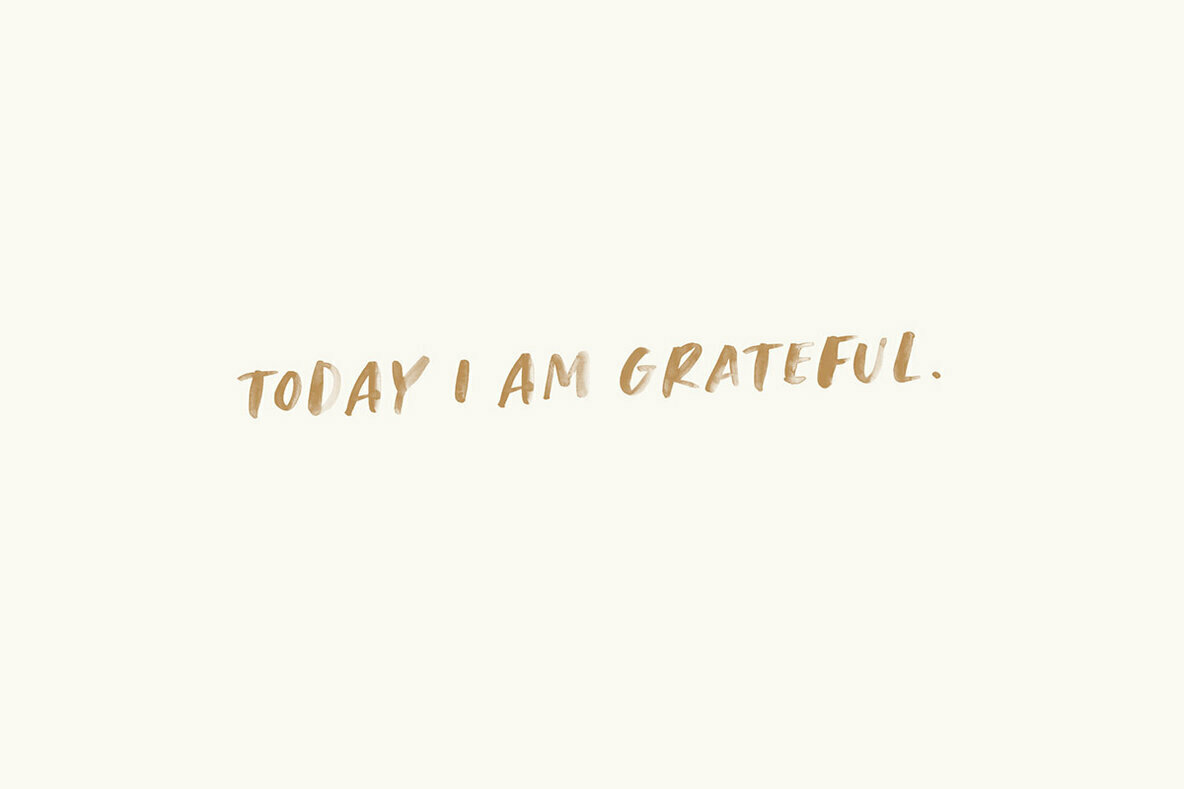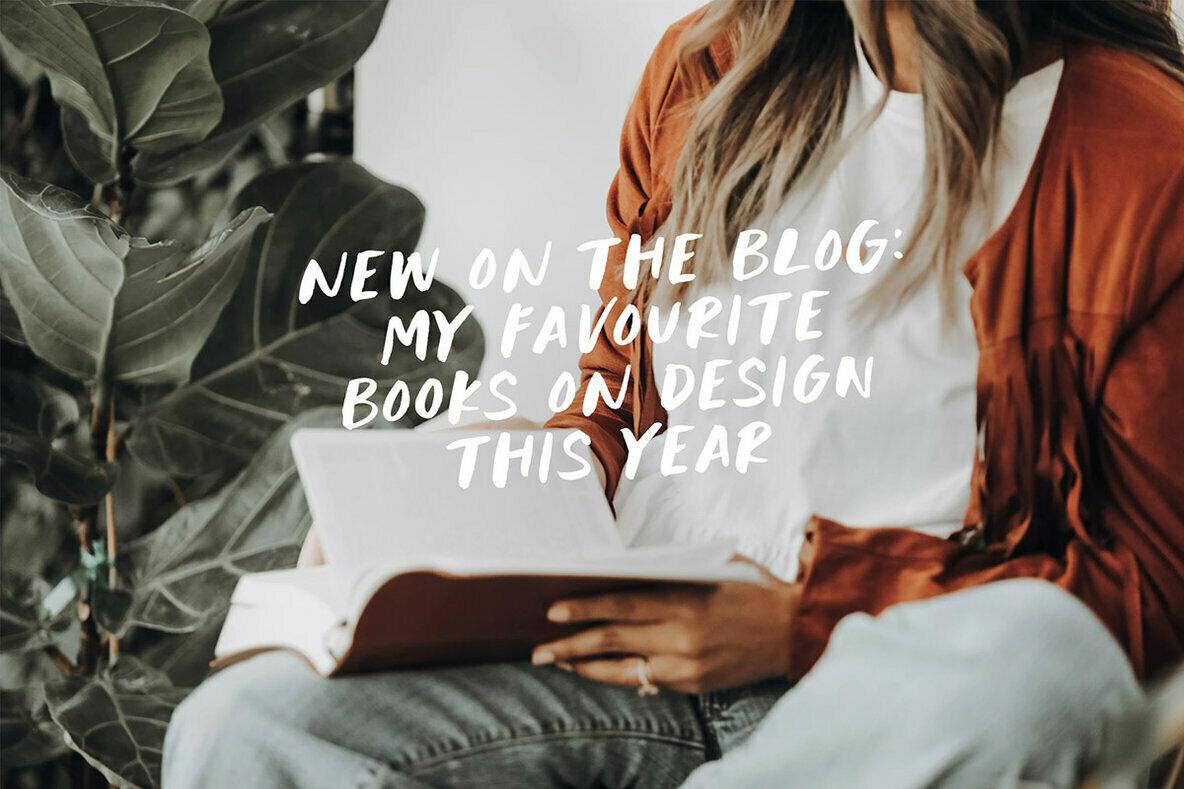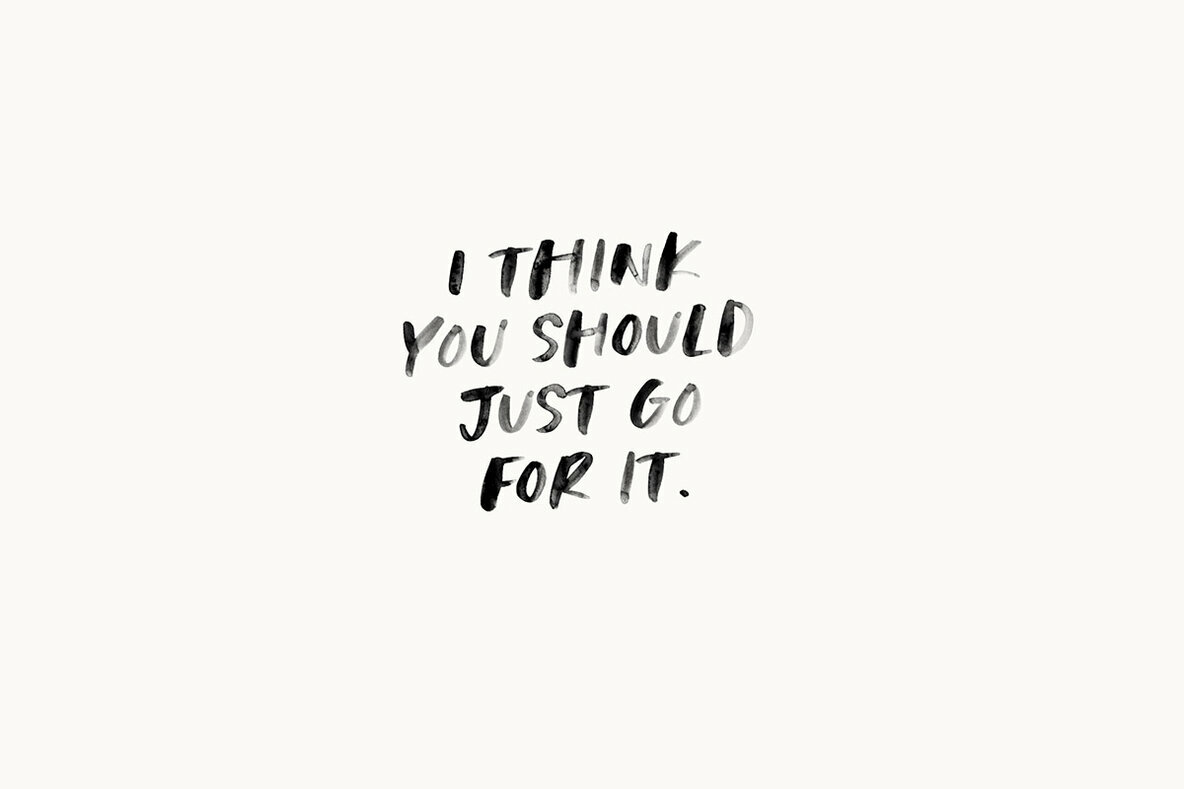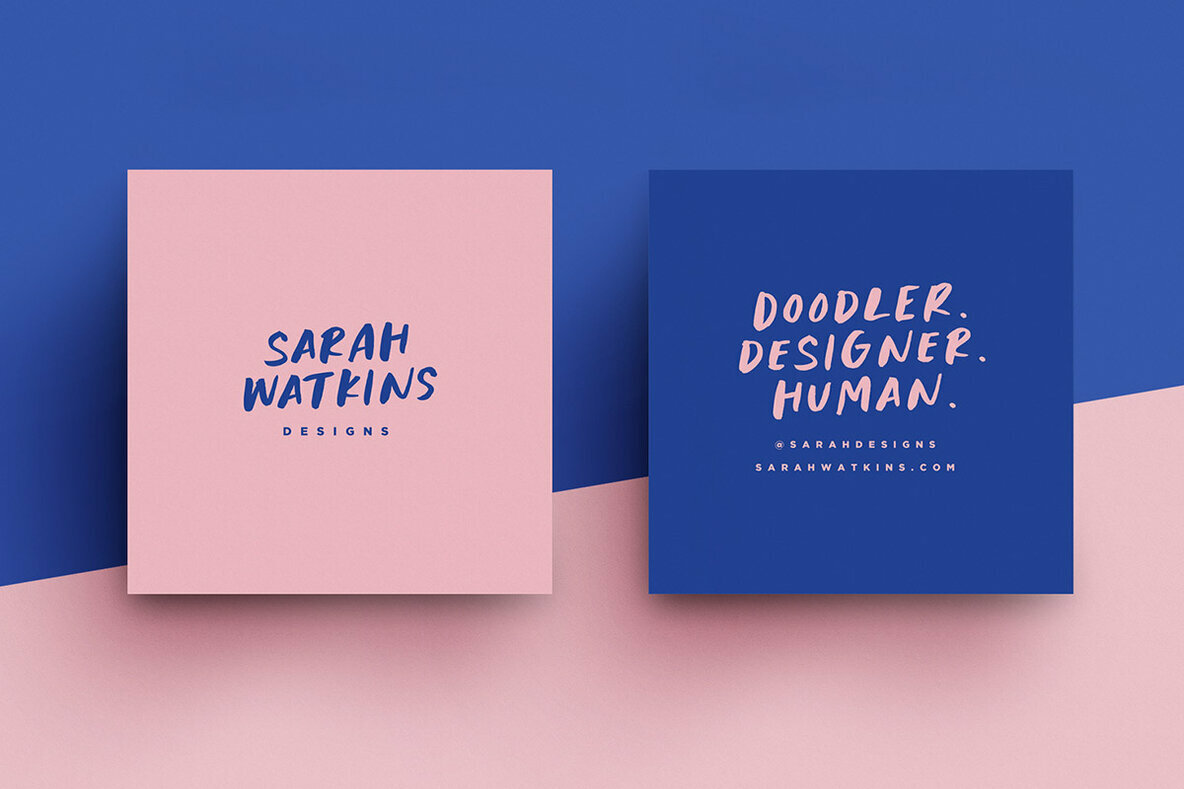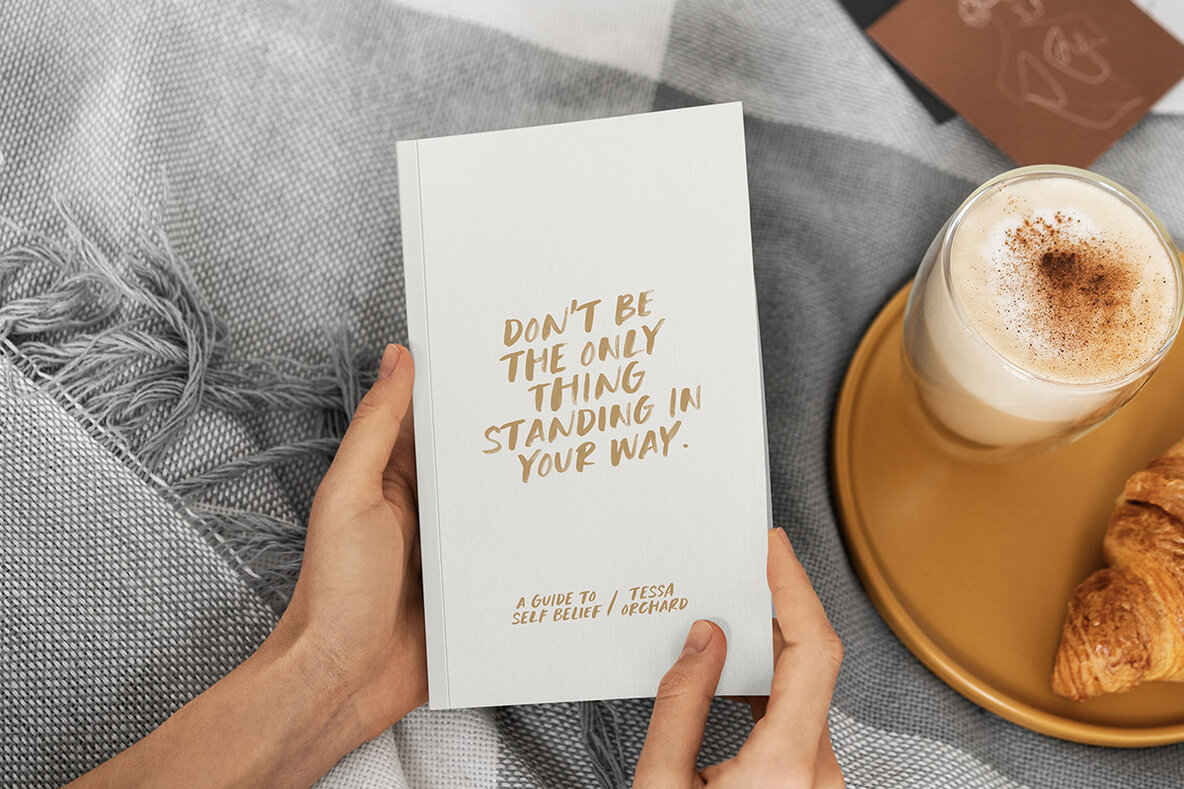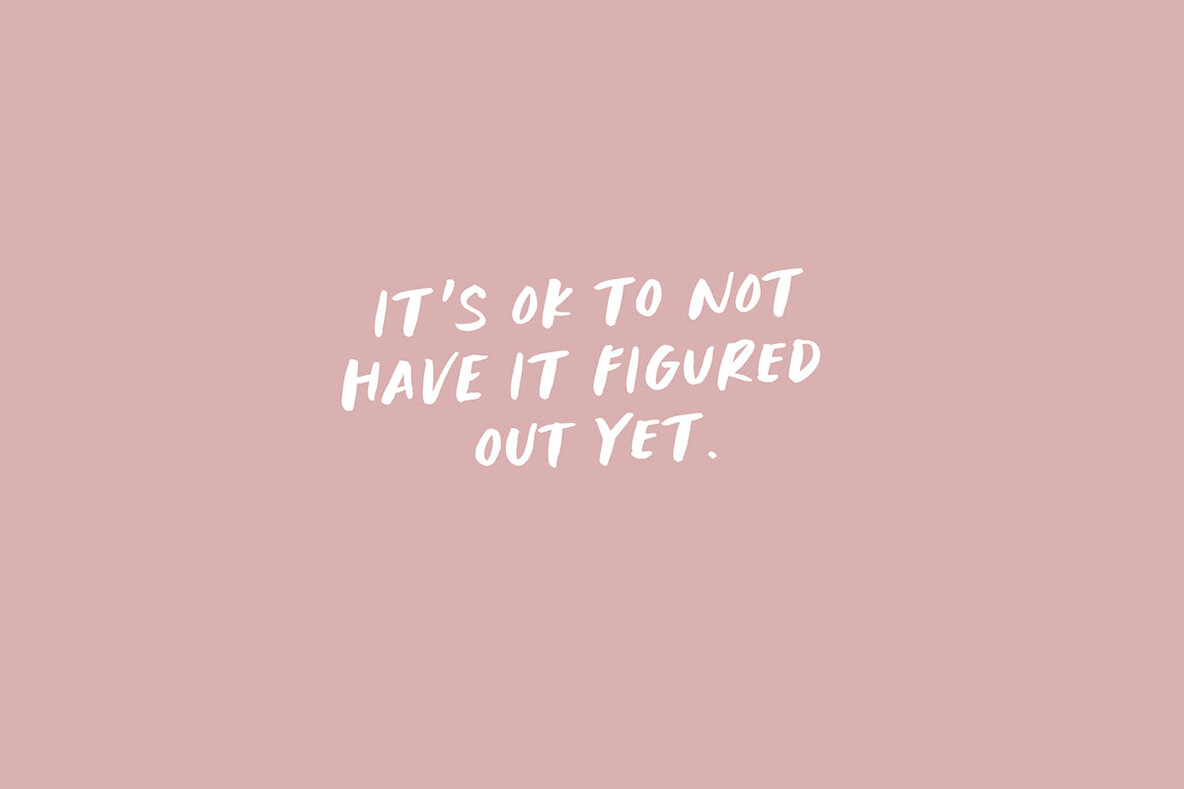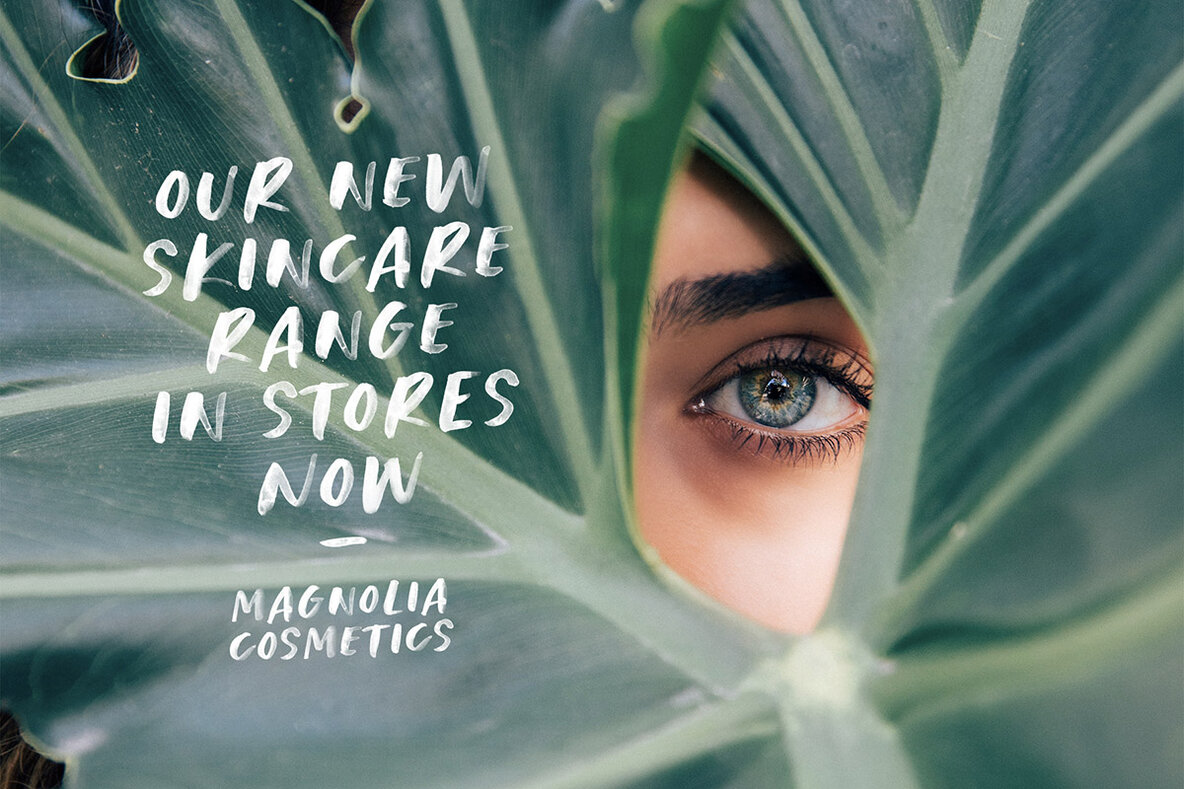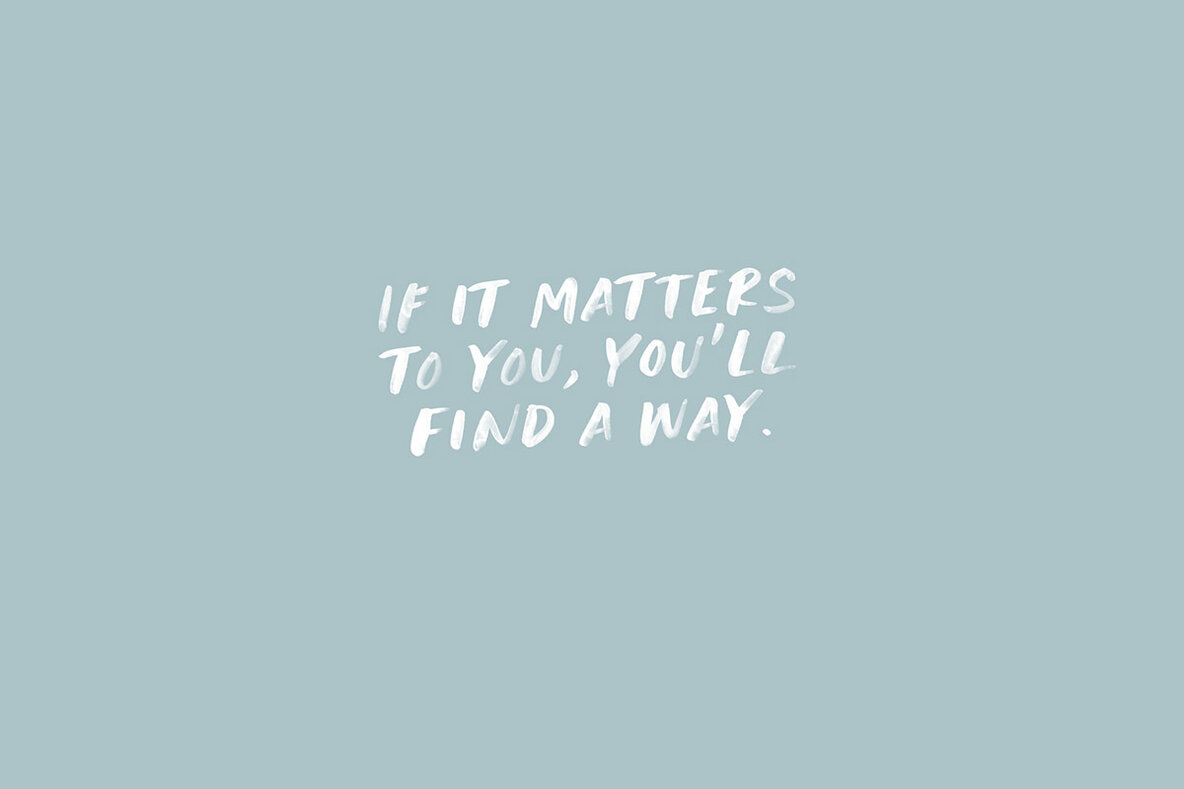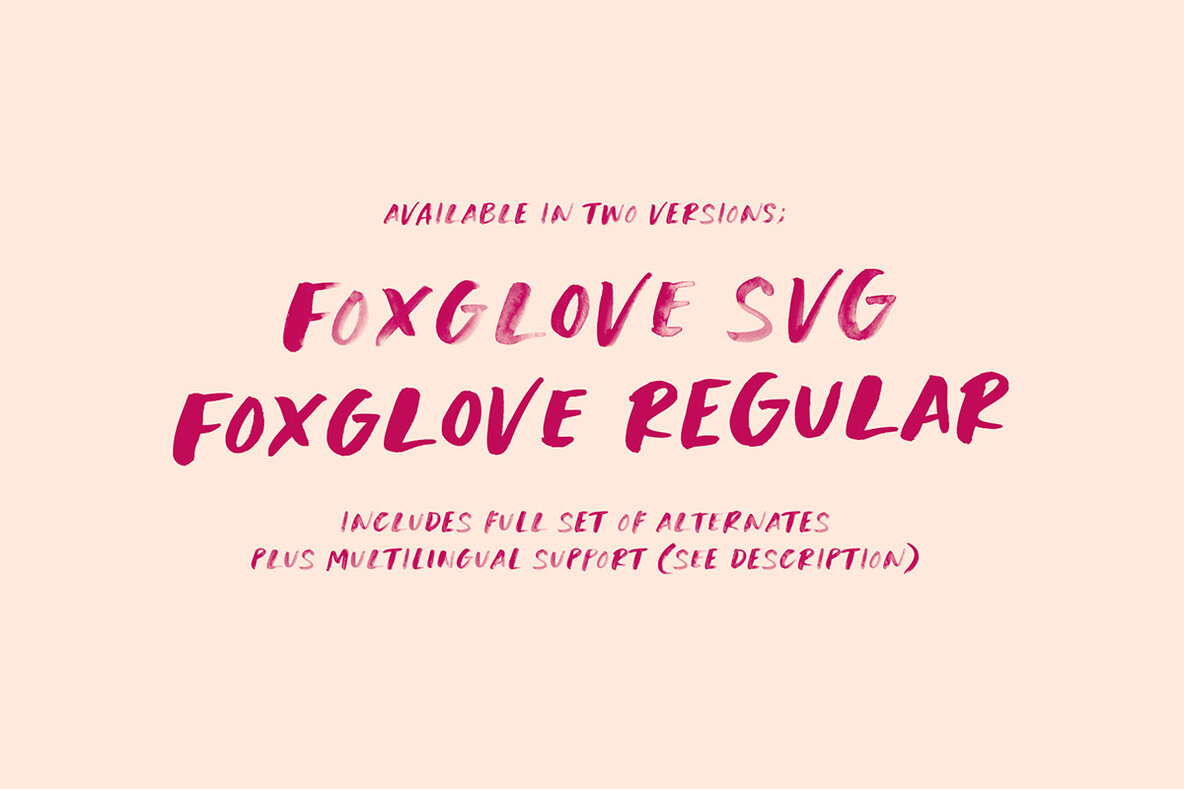
Foxglove SVG Font
Foxglove is a playful, minimal brush font designed to add a personal & relatable quality to quotes, branding, promotional images and product designs. Foxglove comes in two versions; an Opentype-SVG with built in transparent watercolour textures, and a regular version with a filled in, solid texture.
Both fonts contain two sets of uppercase characters, you can switch between these simply by turning your caps-lock on & off.